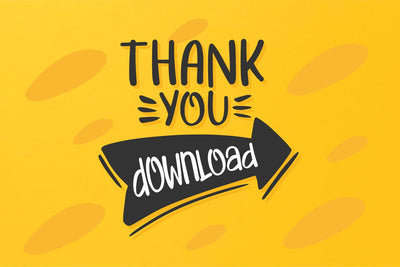
Power Sell Display Font
It's name POWER SELL.
Power Sell is a fun, bouncy handwritten font bursting with handwritten charm and personality!
It is a perfect choice for crafters with cutting machines, as it is ultra smooth for optimal cutting performance.
Power Sell is a fun, spunky font that is bold and smooth enough for cutting with Cricut & Silhouette crafting machines,for Titles for kid`s book, scrapbook, logo, icon, phrases
or quotes for winter greeting cards ( Halloween or New Year holidays),
photo overlay, short phrases, childrenís book, gift shops tag,
presentation in social media Pinterest, Instagram, Facebook or others.